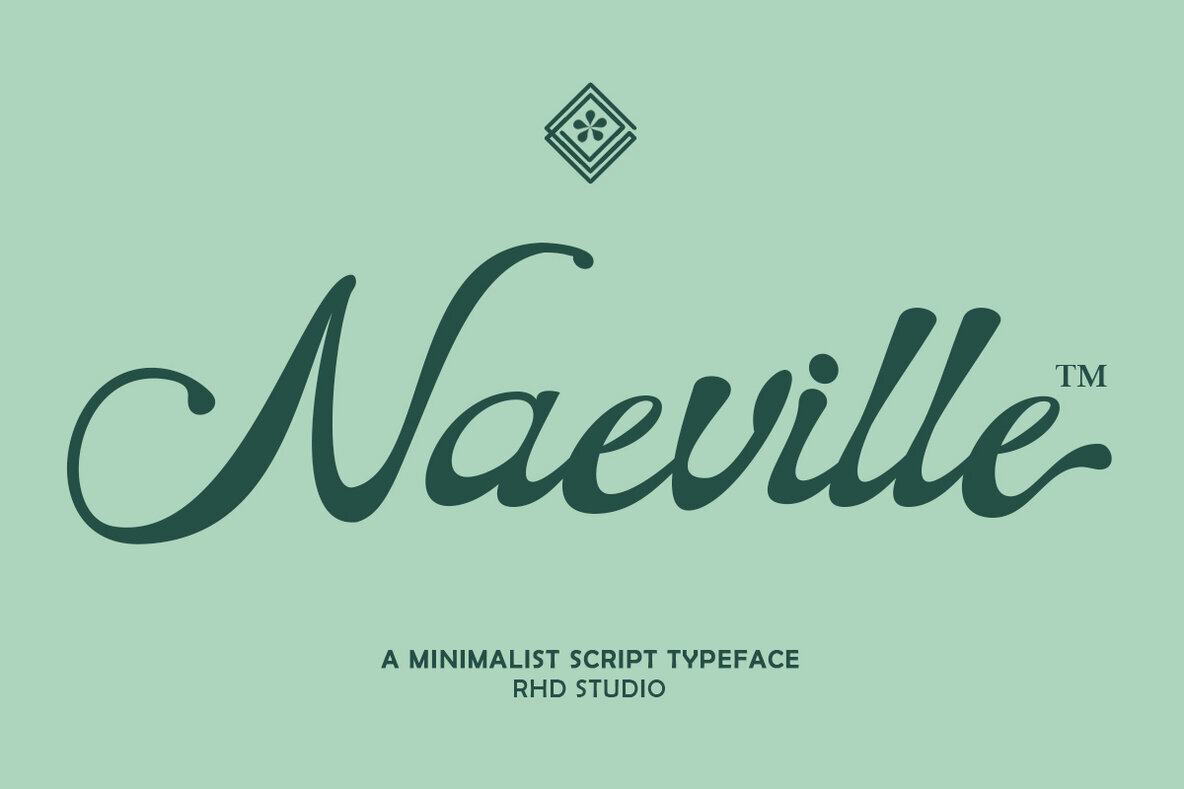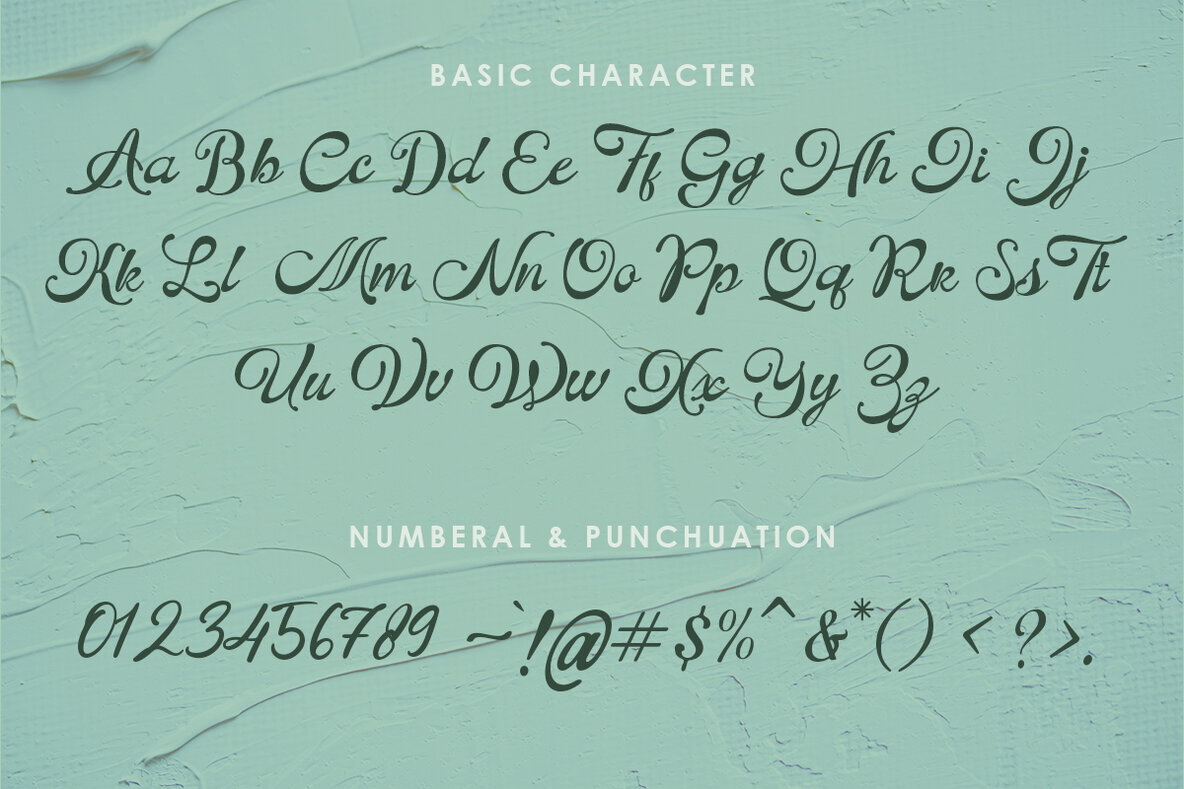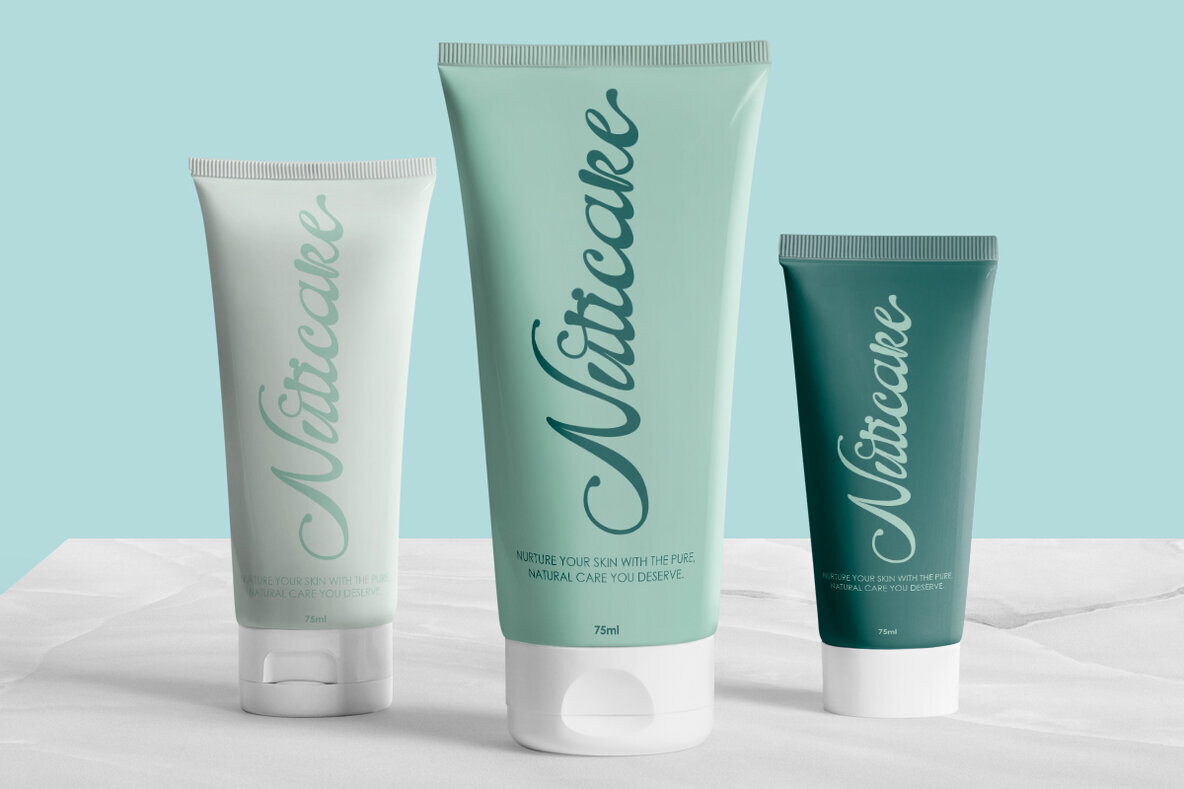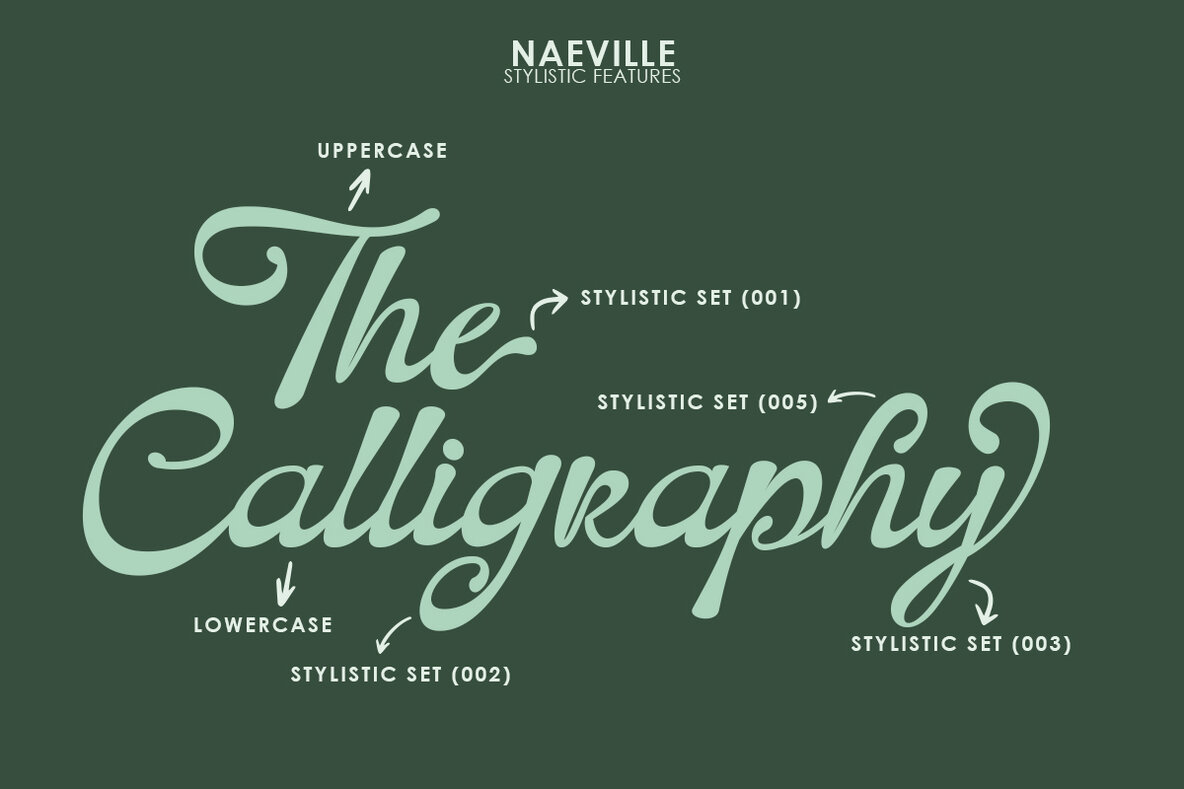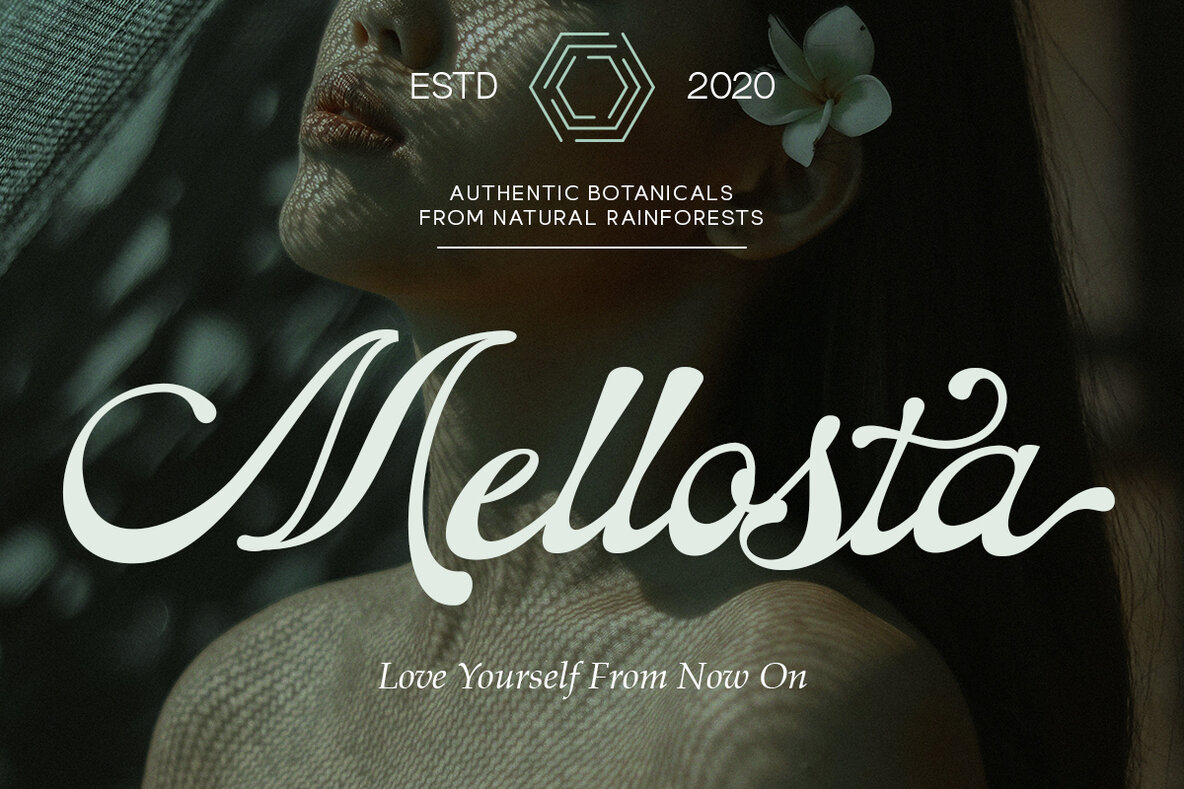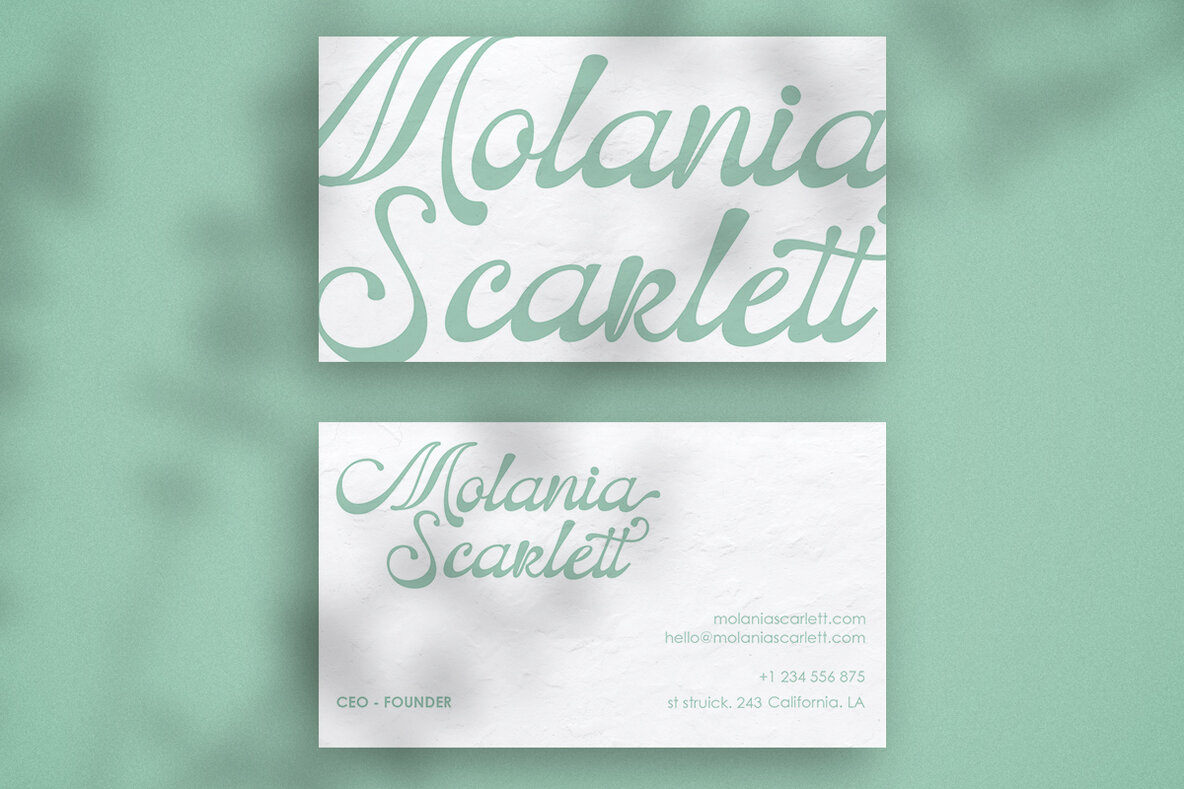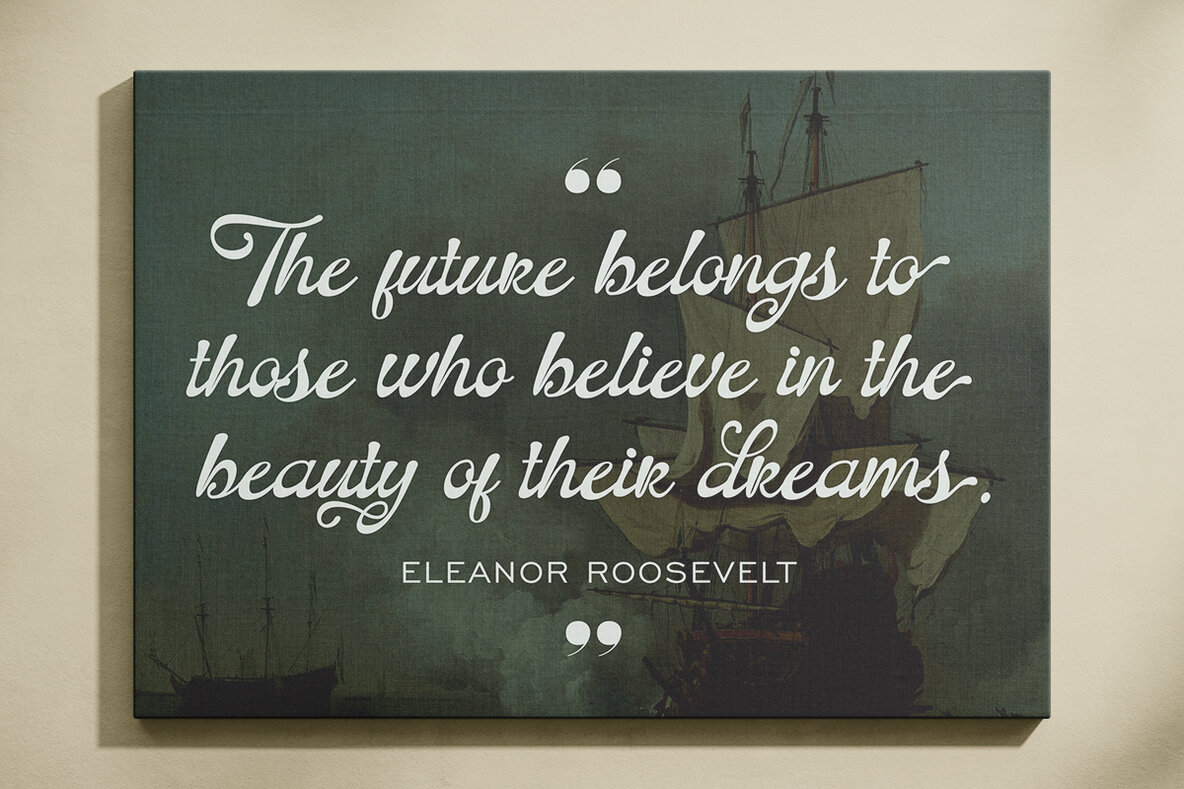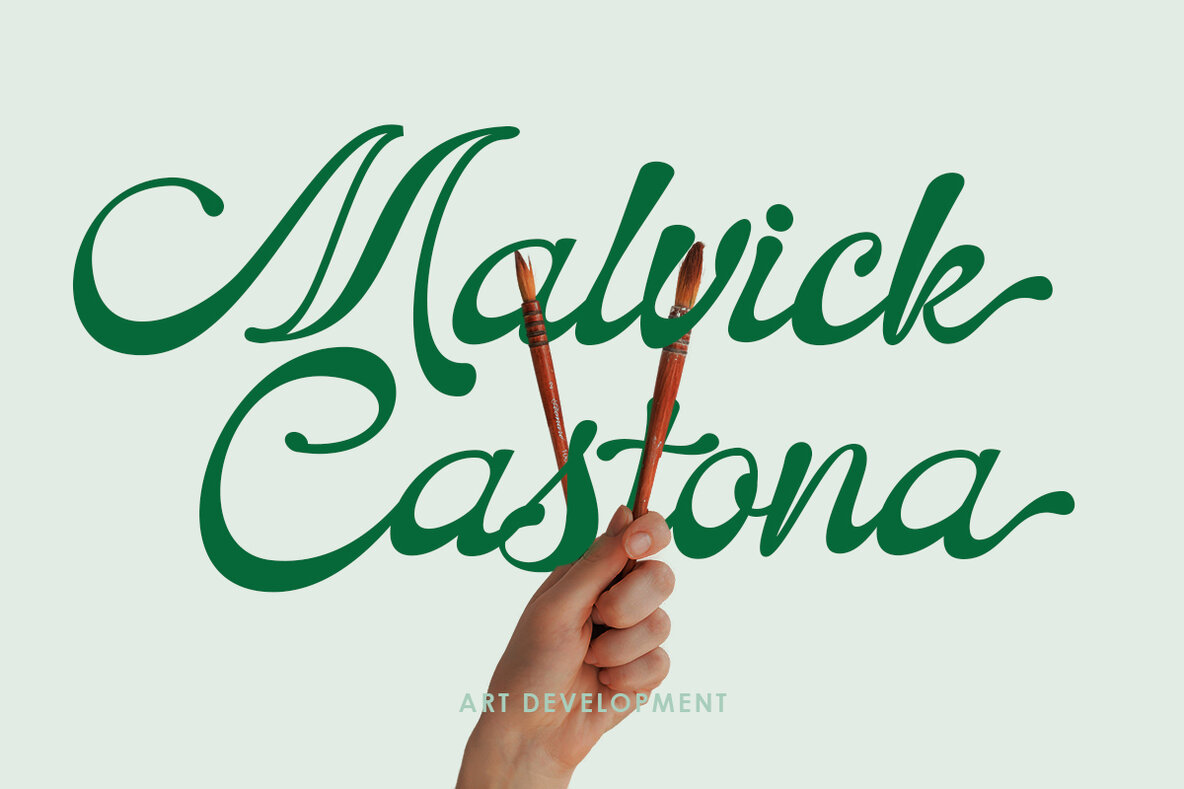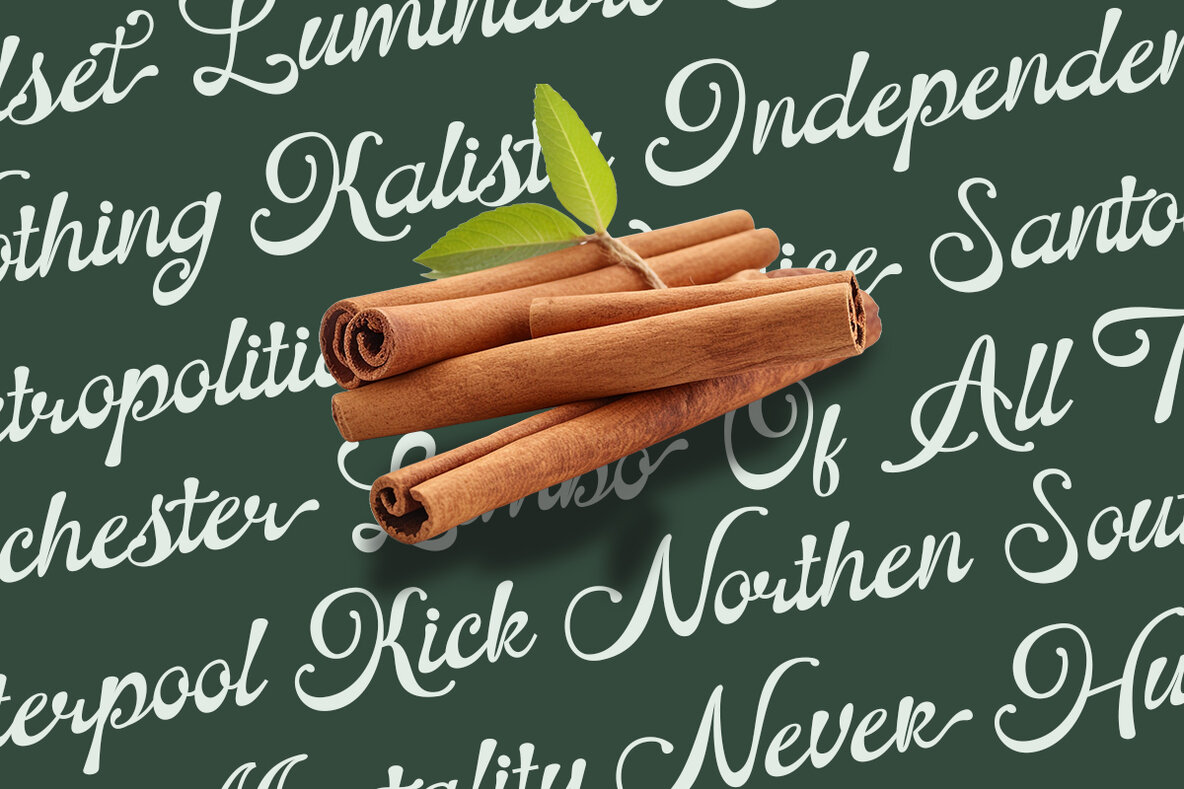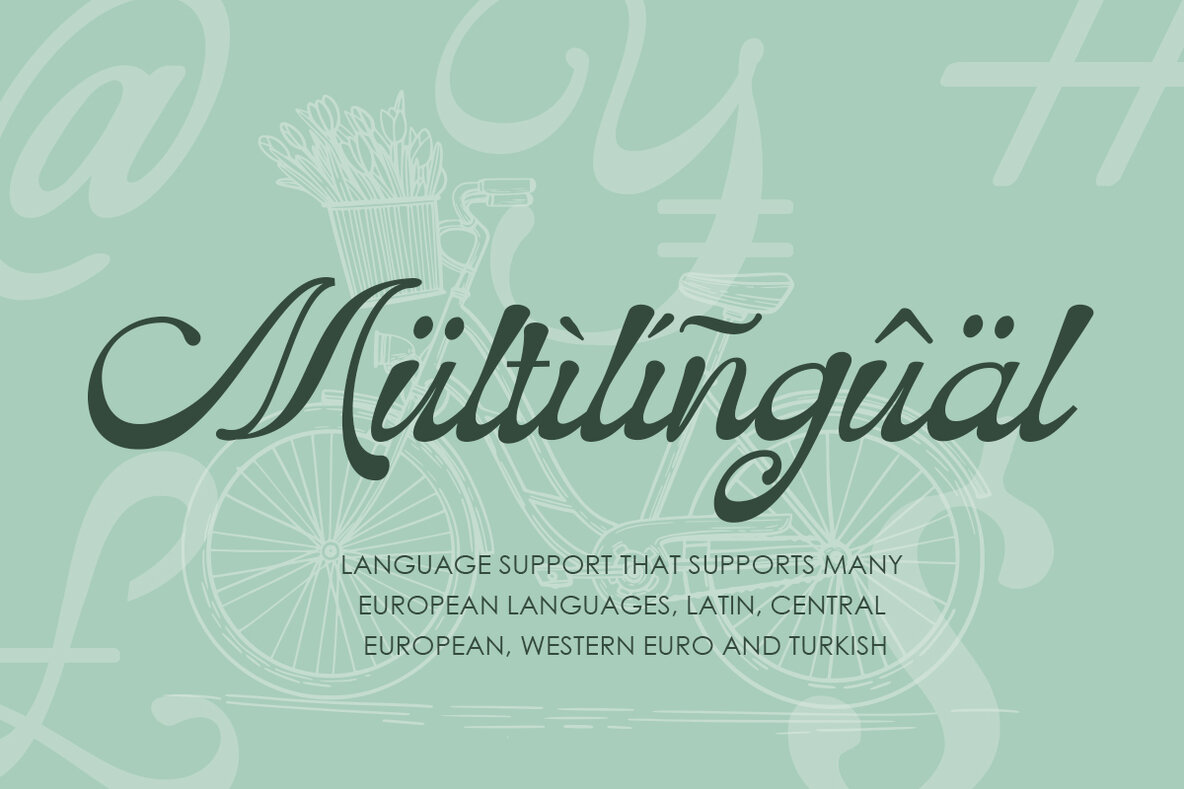
Neaville Font
Naeville Regular
Drawing inspiration from timeless handwriting found in books, Naeville Script is a sophisticated script font that marries classic elegance with a contemporary flair. Ideal for projects that require a touch of nostalgia yet embrace modernity, this font includes style sets, contextual alternatives, ligatures, and multi-language support—ensuring that your designs will captivate and engage effortlessly. Naeville Script is well-suited for a wide array of creative endeavors, ranging from logotypes and printed quotes to invitations and cards. Its versatility extends to product packaging, headers, letterheads, apparel, web design, magazines, and books, making it a trusty companion for graphic artists and designers alike.Naeville Script: The Intersection of Classic Handwriting and Modern Design